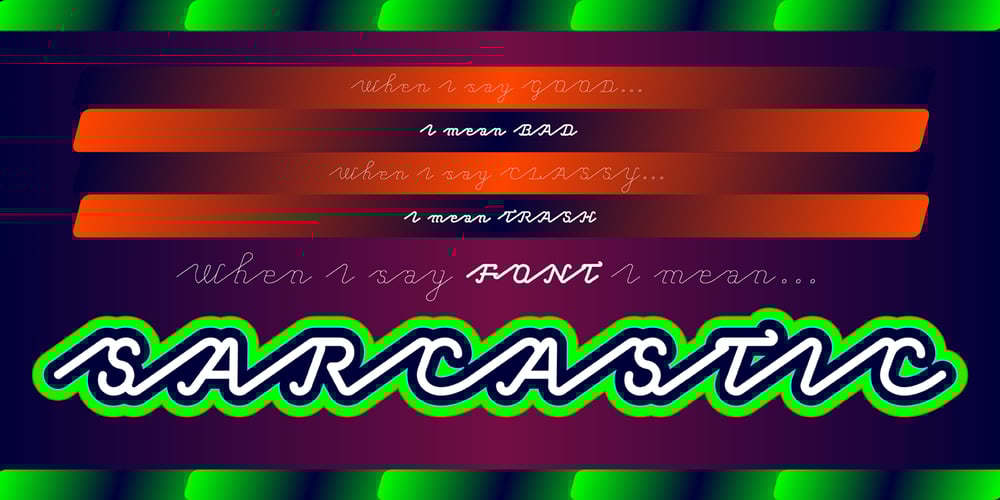
Sarcastic
Sarcastic font
Sarcastic Font Family was designed by Marcus Leis Allion, Jonathan Barnbrook and published by Barnbrook Fonts. Sarcastic contains 2 styles and family package options. Sarcastic is a monoline display typeface. It draws influence from a visual language of mid-twentieth century consumerism: 1950s script typography and the rhythmic forms of interconnected neon lettering. Sarcastic is perfect for contemptuous quips, disparaging proclamations, and castigating commentary.